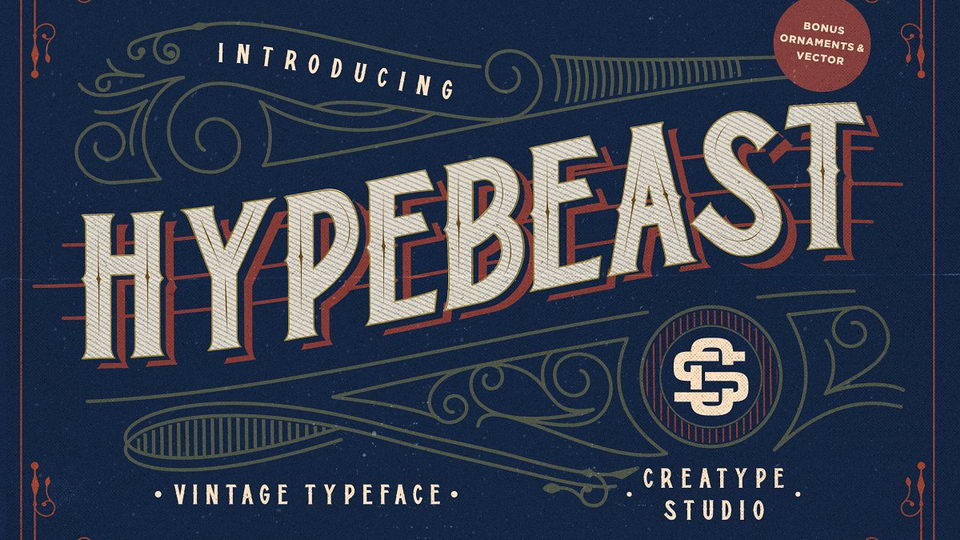
Download Hypebeast font, a decorative typeface with beautiful ornaments inspired by vintage lettering sign and art. Hypebeast looks solid and bold with Victorian style touch.